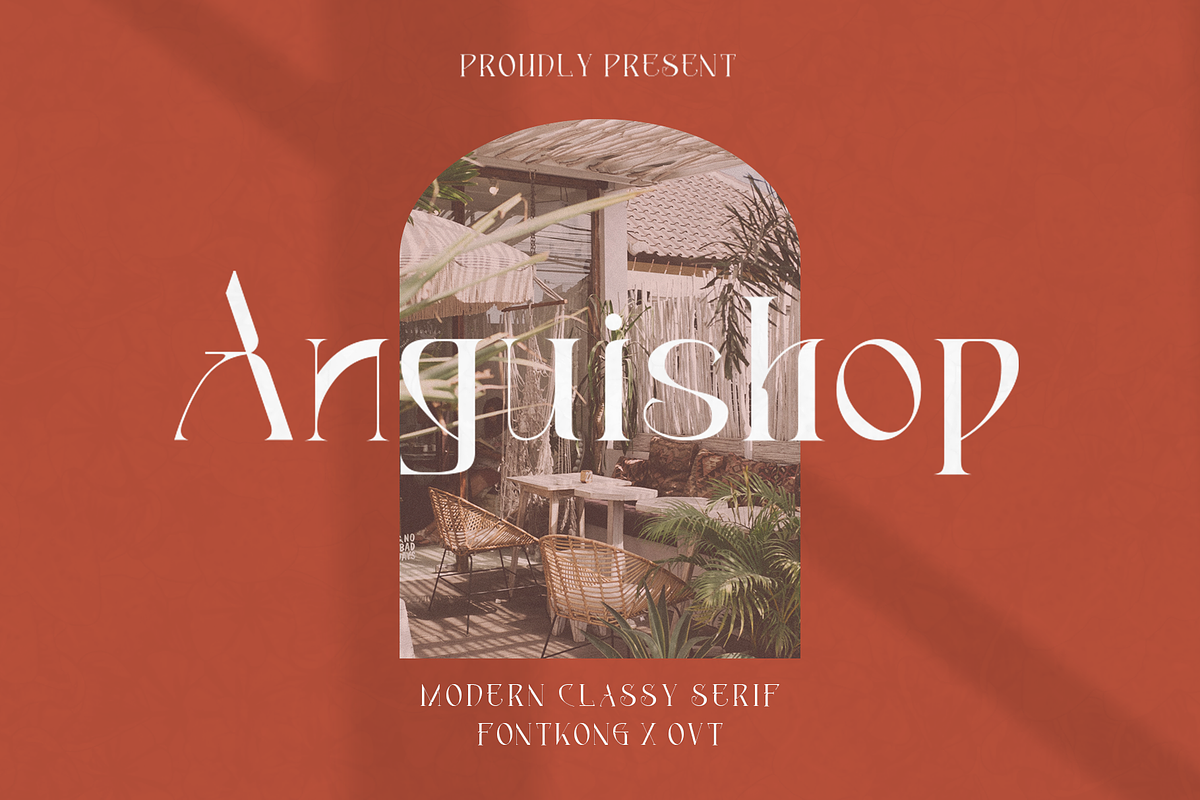
Anguishop - Modern Classy Serif Font Free Download
Anguishop - Modern Classy Serif Font Free Download is an elegant, modern serif typeface that combines sophistication with a contemporary twist. Perfect for high-end branding, luxury logos, editorial design, and upscale packaging, this font gives your typography a refined, stylish appearance.
The font features clean lines, sharp serifs, and balanced proportions, making it ideal for creating both eye-catching headlines and readable body text. Whether you're working on fashion designs, premium branding, or any other project requiring a polished, classy look, Anguishop brings elegance and modernity to your designs.